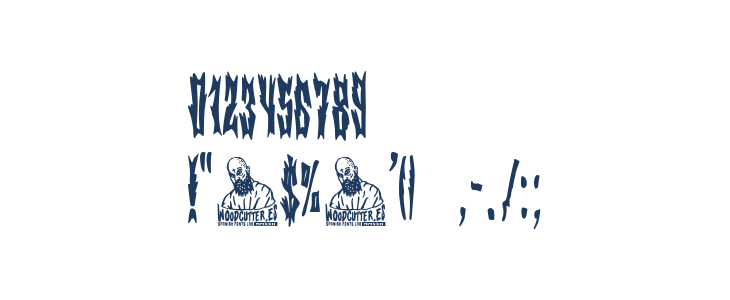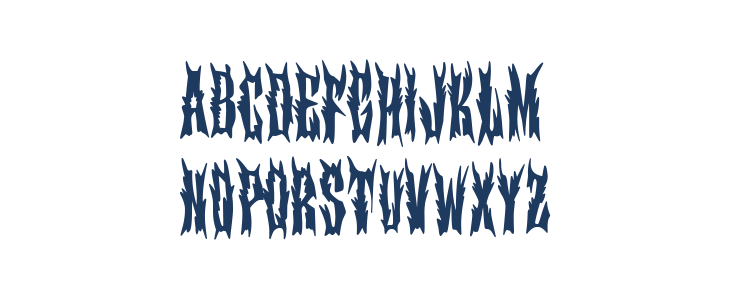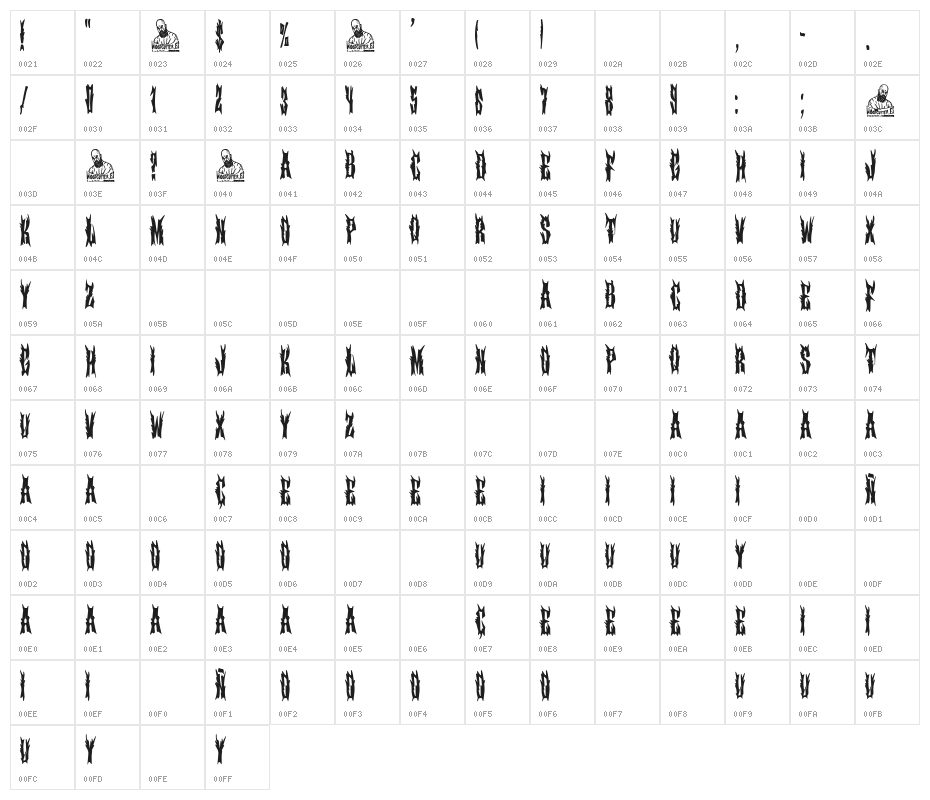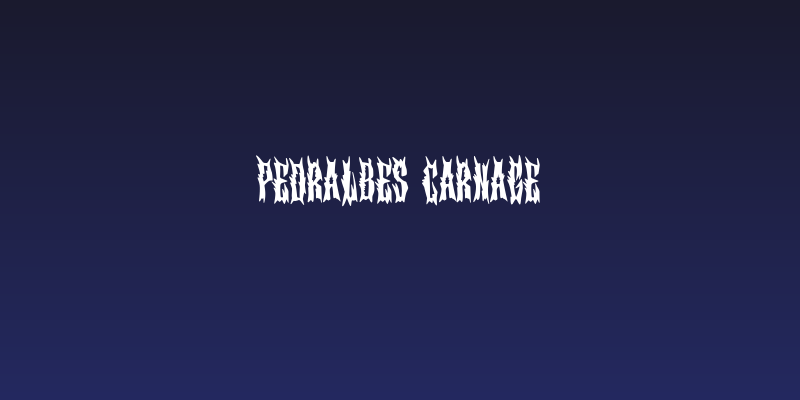
Pedralbes Carnage Font
Pedralbes Carnage Description
A jagged, aggressive display font with sharp, irregular edges and high contrast, evoking a chaotic or horror-inspired aesthetic. The letterforms are tall and condensed, with exaggerated spikes and uneven contours, creating a sense of intensity and movement.
| Overall Style | Decorative, Horror, Aggressive |
| Use Case | Headlines, Posters, Logos |
| Proposed Projects | Horror movie posters, Halloween event flyers, heavy metal band logos, comic book titles, video game graphics. |